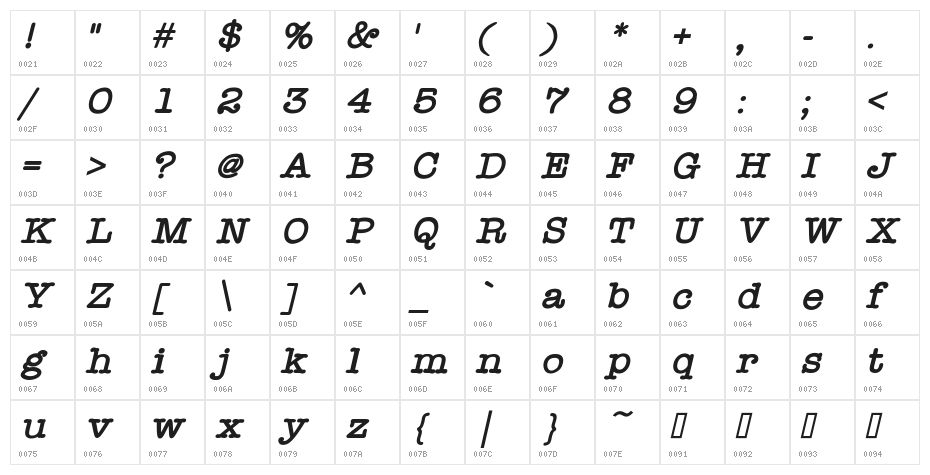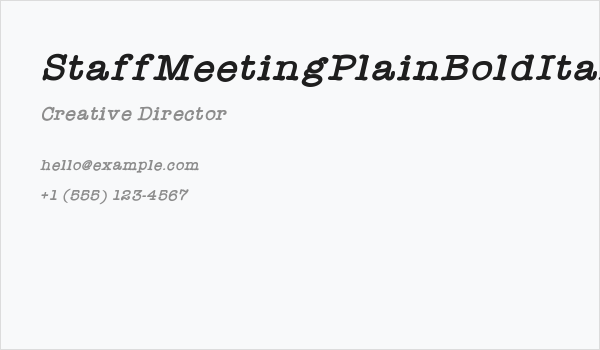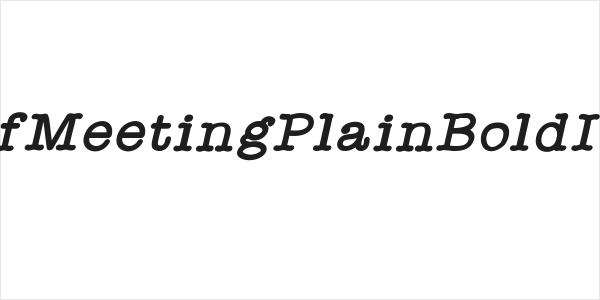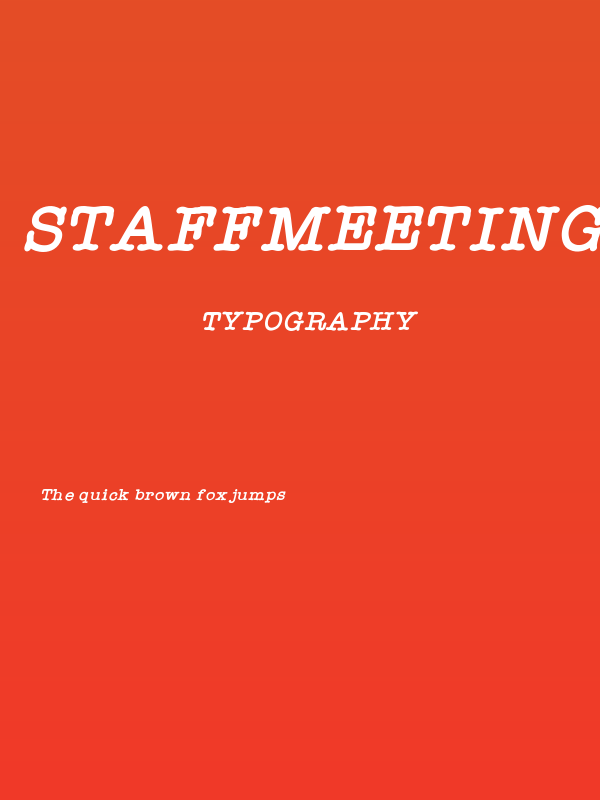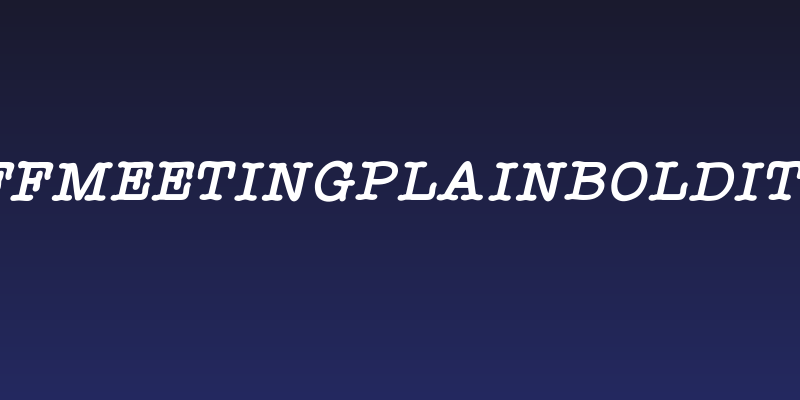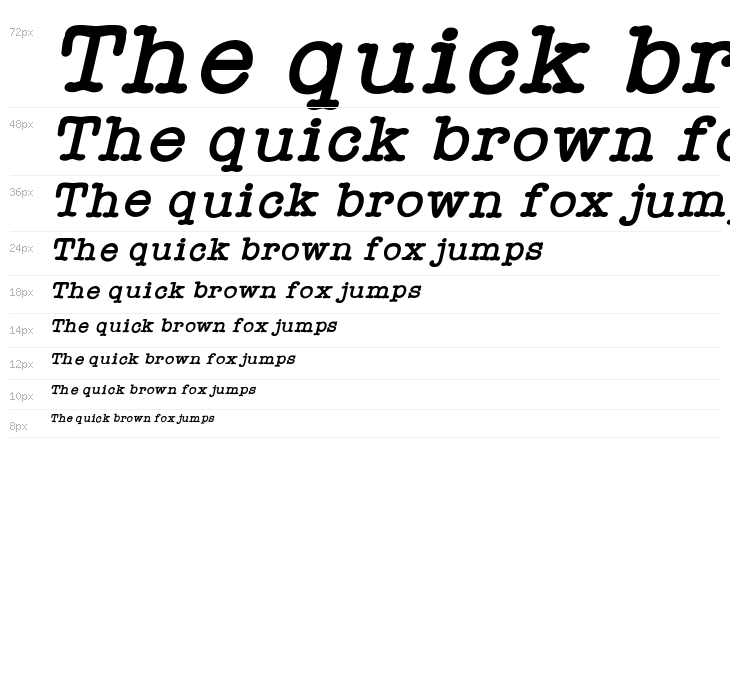
StaffMeetingPlainBoldItalic Font
StaffMeetingPlainBoldItalic Description
This font exhibits a classic serif style with a bold and italicized appearance, giving it a distinctive and dynamic look. The characters are well-defined with a slight slant, enhancing readability while maintaining a traditional aesthetic. The serifs are pronounced, adding a touch of elegance and formality. The uppercase letters are robust and commanding, while the lowercase letters maintain a consistent flow, ensuring a harmonious balance across text. Numerals are clear and legible, making them suitable for various applications. The special characters are crafted with attention to detail, complementing the overall style.
| Use Case | Headlines, Logos, Editorial |
| Proposed Projects | Ideal for formal invitations, book covers, editorial headlines, and branding materials that require a touch of sophistication. |